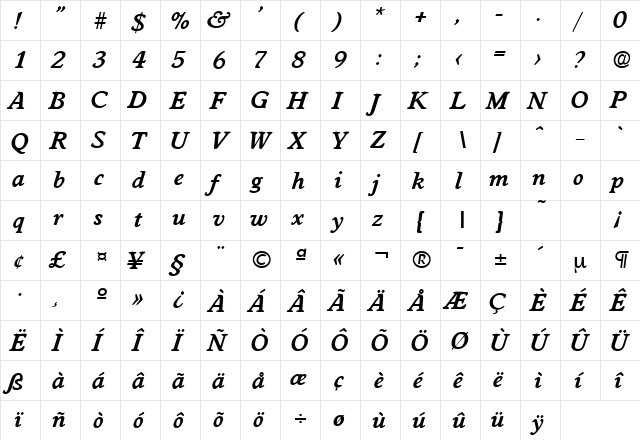
Worcester-Serial BoldItalic
Design Context for Worcester-Serial Typeface
Worcester-Serial offers clean, dependable letterforms without strong stylistic allegiance, making it a practical choice for designers who need flexibility. The dynamic lean of this cut emphasises speed and emphasis in any layout. The heavy weight commands attention and anchors typographic hierarchies.
Pro Tip: Use Worcester-Serial for emphasis, pull quotes, and subheadings where its slanted energy can add rhythm to the layout.